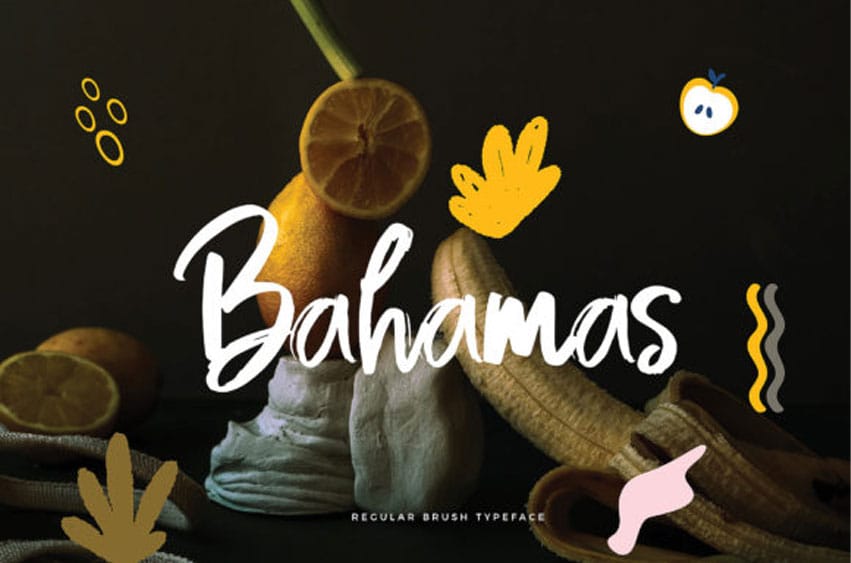
Bahamas Font is a lovely, brushed handwritten font.
It looks stunning on wedding invitations, thank you cards, quotes, greeting cards, logos, business cards, and every other design that needs a customized touch.